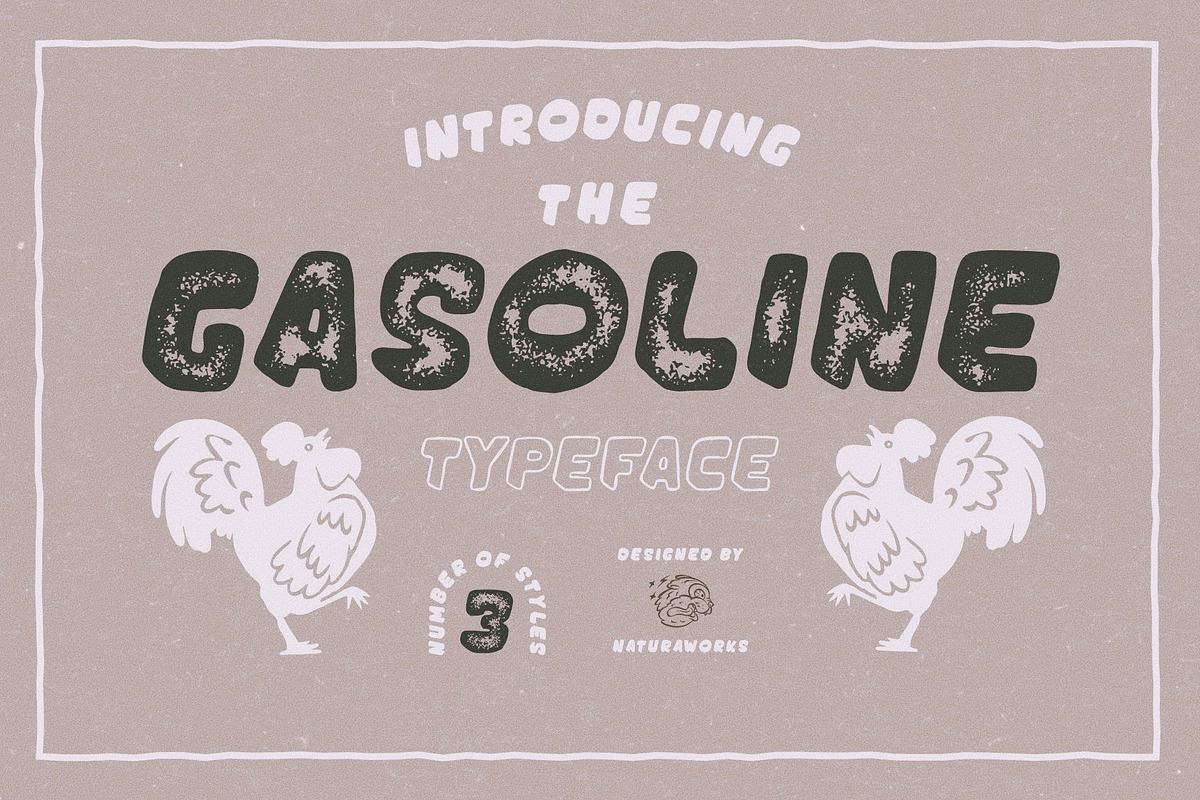
Gasoline Typeface Free Download is a bold, industrial-inspired display font that exudes grit, power, and vintage attitude. Perfect for automotive branding, garage signage, sports posters, apparel design, and retro-themed projects, Gasoline captures the spirit of speed, muscle, and rugged craftsmanship.
With its strong letterforms and mechanical edge, this typeface delivers serious impact while remaining clean and legible. Gasoline includes uppercase and lowercase characters, numbers, punctuation, multilingual support, and is fully compatible with both Mac and Windows systems.